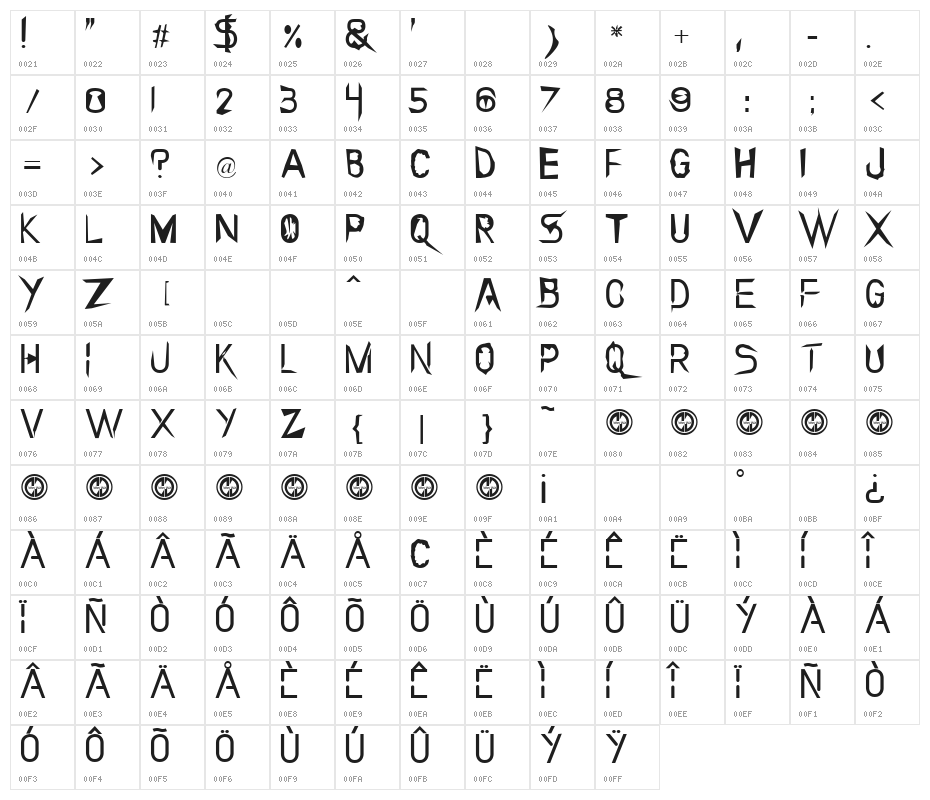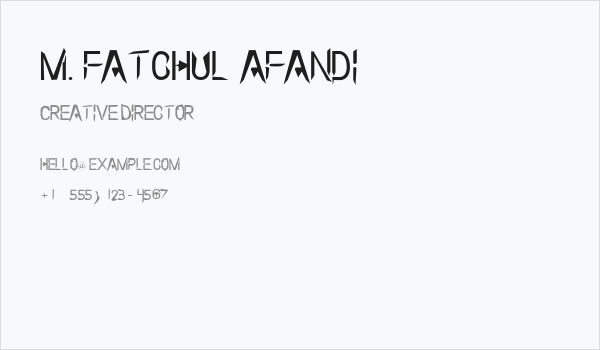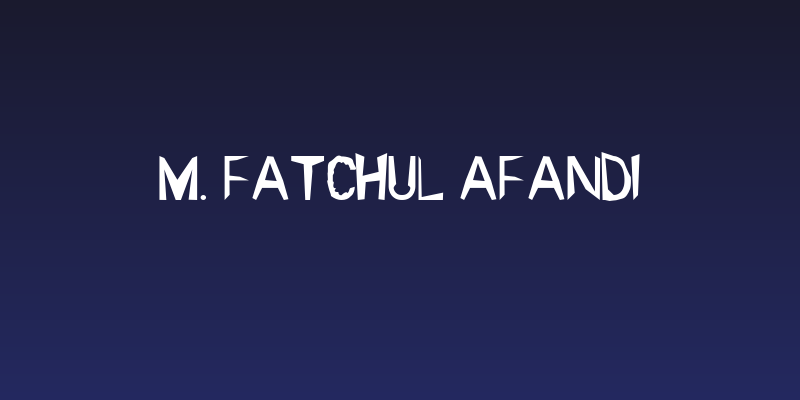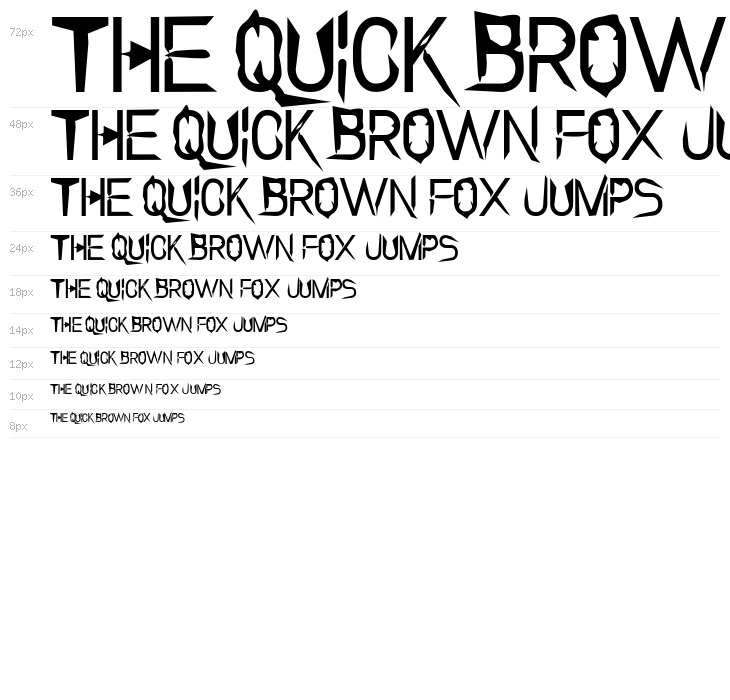
m. fatchul afandi Font
m. fatchul afandi Description
This font features a bold, edgy design with sharp angles and irregular shapes, giving it a dynamic and aggressive appearance. The letters are characterized by jagged edges and unexpected cuts, creating a sense of movement and energy. The uppercase and lowercase letters maintain a consistent style, while the numbers and special characters follow the same angular theme. This font stands out with its unique, rebellious aesthetic, making it ideal for projects that require a strong visual impact.
| Overall Style | Modern, Edgy |
| Proposed Projects | Ideal for music album covers, event posters, video game graphics, and branding for edgy or alternative products. |